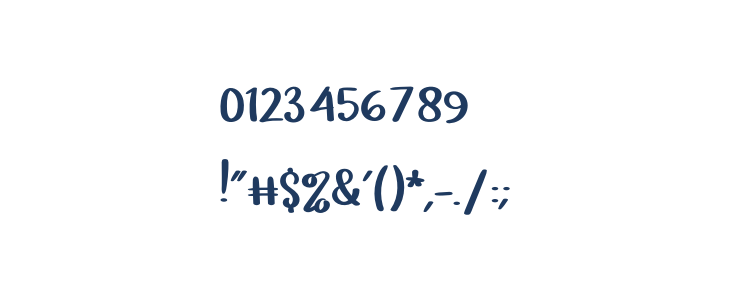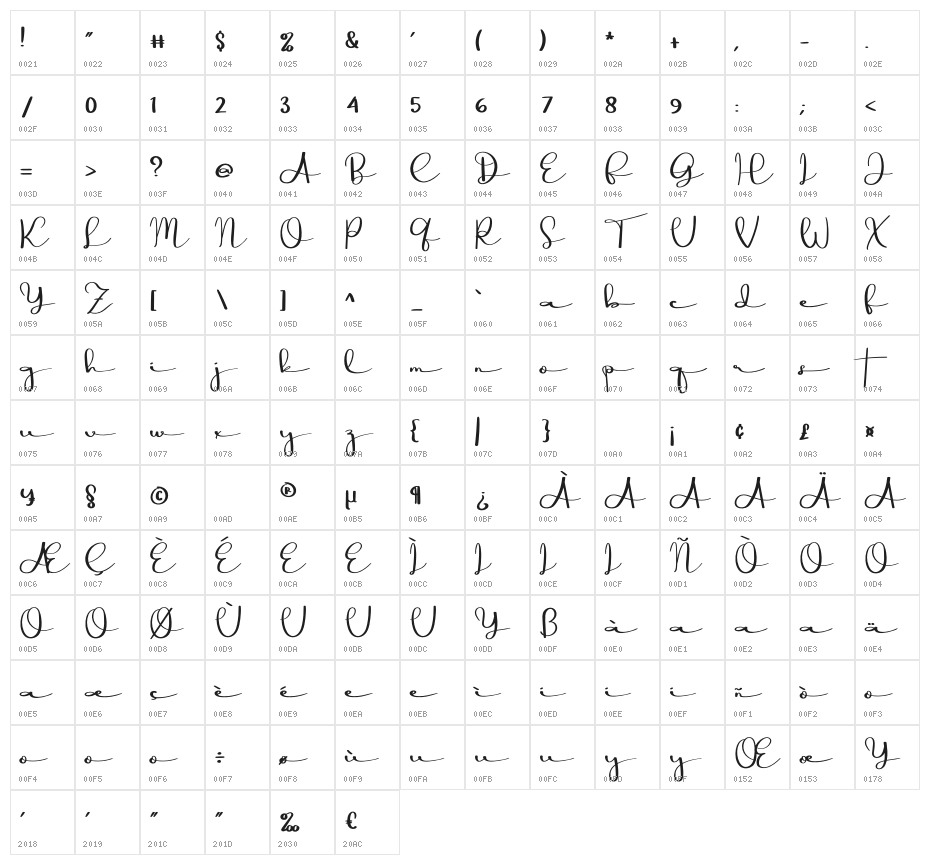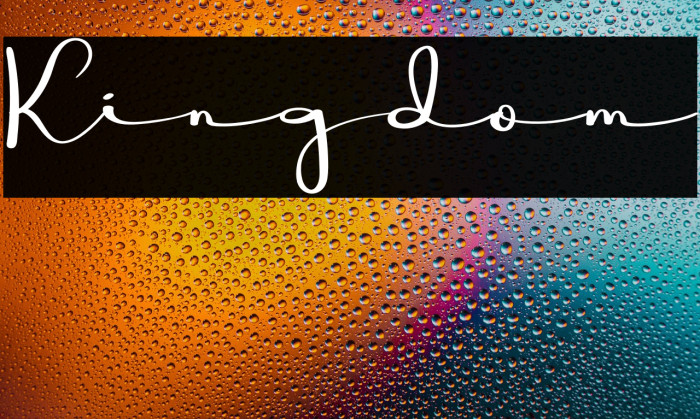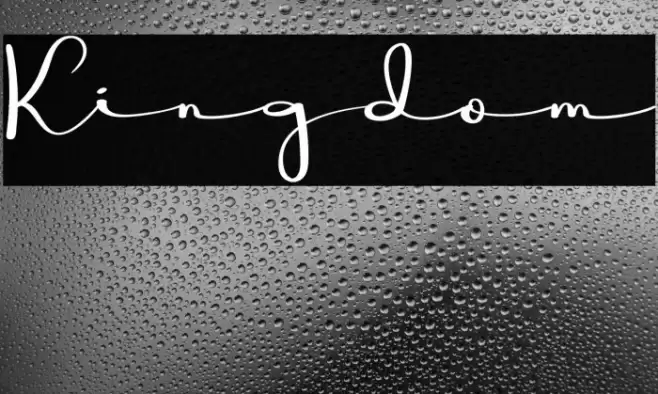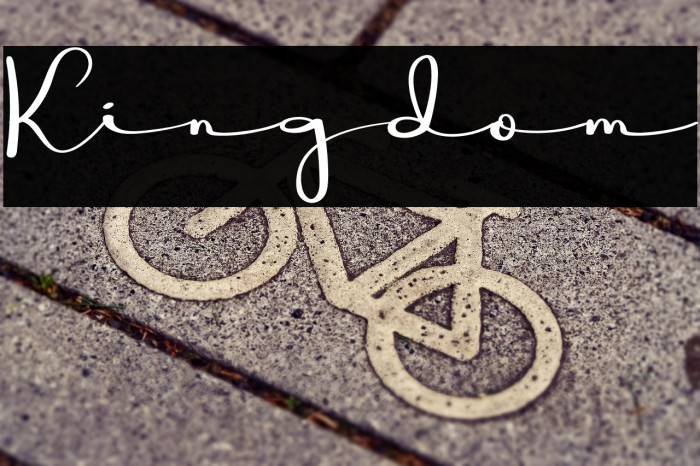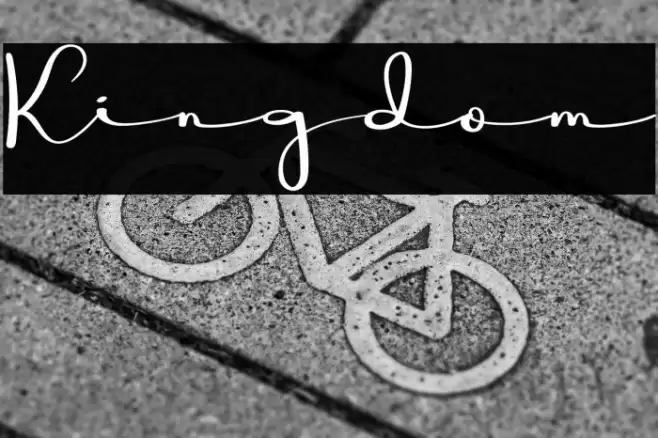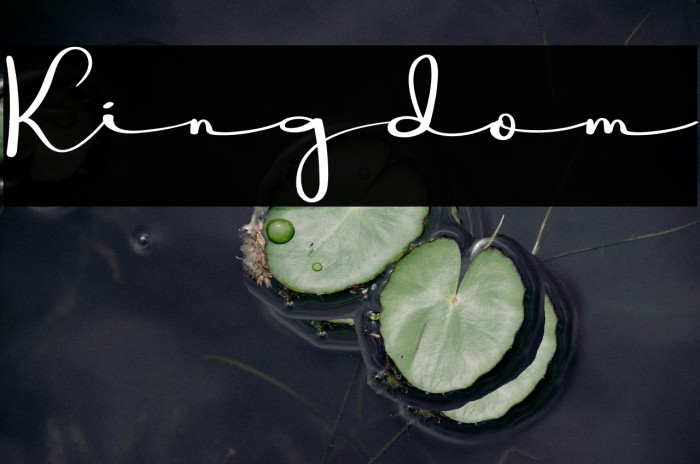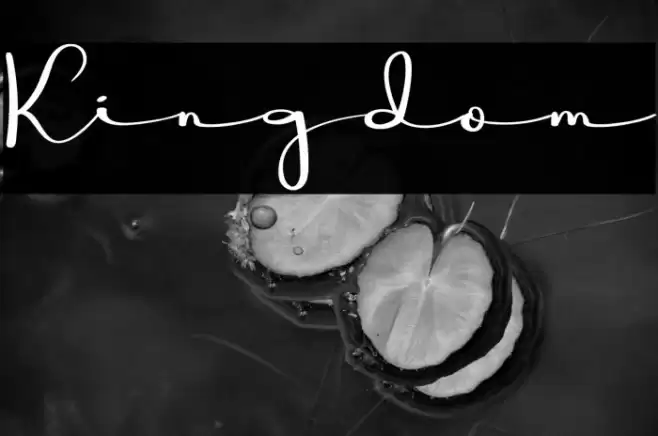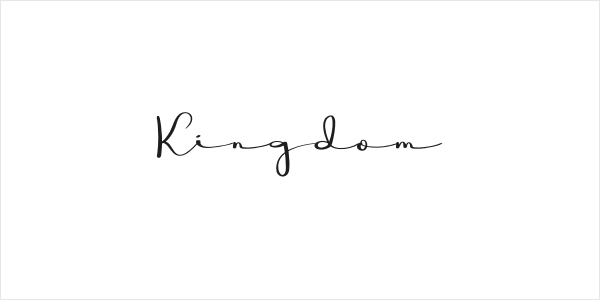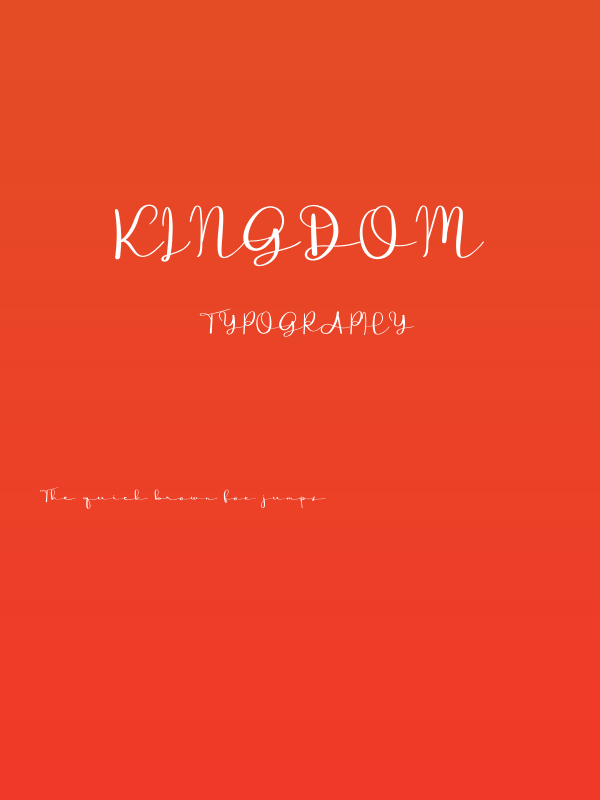
Kingdom Font
Kingdom Description
This font features a whimsical and elegant script style, characterized by its flowing, interconnected letters. The uppercase letters are bold and expressive, with unique flourishes that add a touch of sophistication. The lowercase letters maintain a consistent, smooth flow, enhancing readability while preserving the font's artistic flair. Numbers are bold and clear, ensuring they stand out in any design. Special characters are thoughtfully designed to match the overall aesthetic, making this font versatile for various uses. The font's playful yet refined nature makes it suitable for creative projects that require a personal touch.
| Proposed Projects | Ideal for wedding invitations, greeting cards, branding, and social media graphics. |